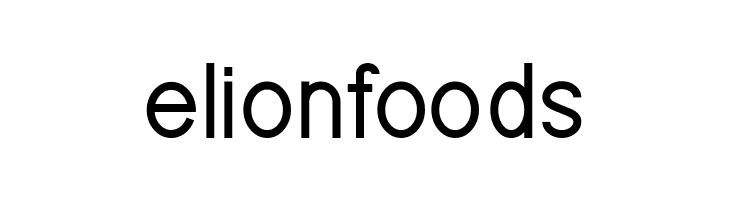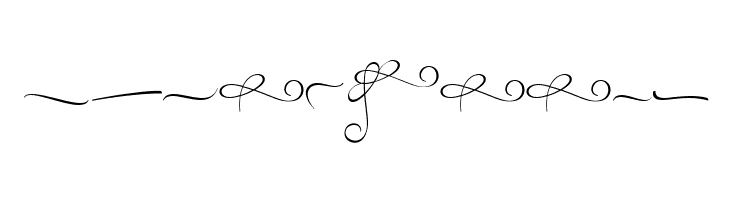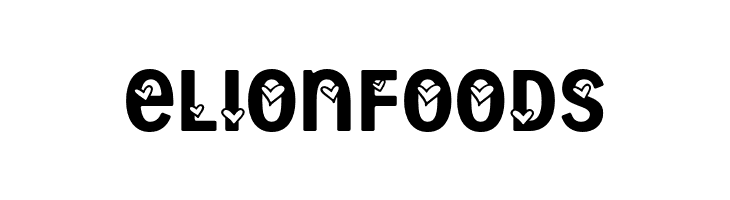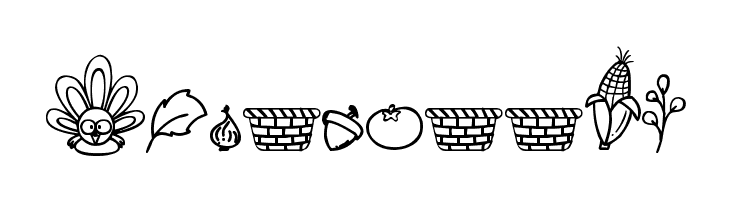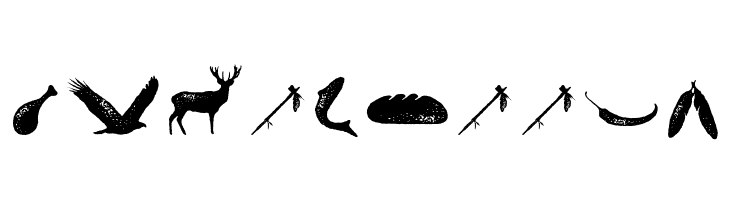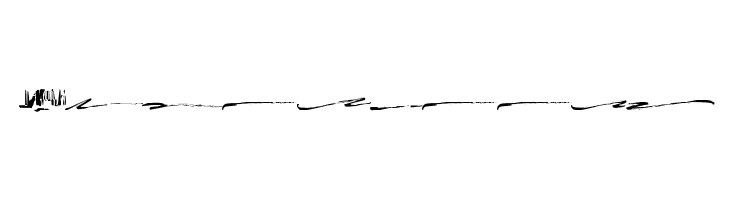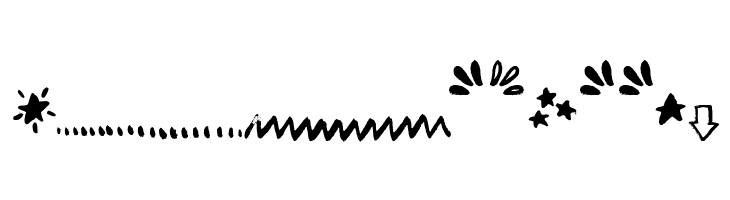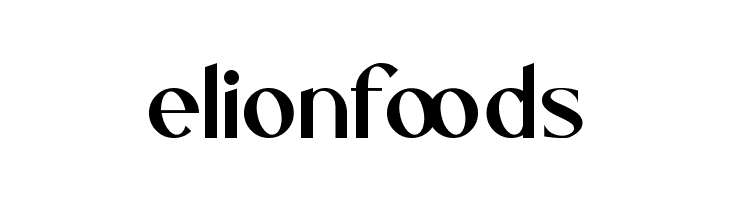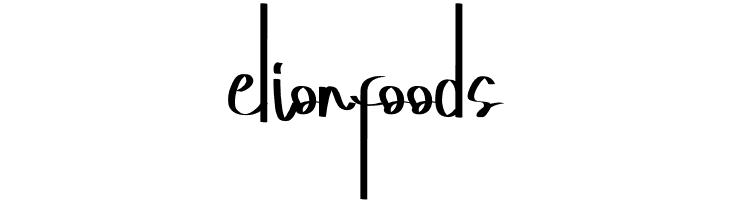
A playful and decorative font with circular embellishments on uppercase letters.
Elegant and swirling ornaments for sophisticated decoration.
A bold, decorative font with heart motifs for a playful, romantic style.
A whimsical collection of autumn-themed dingbats featuring turkeys, pumpkins, and other harvest symbols.
A vintage collection of rustic, handcrafted icons and symbols.
Elegant, flowing swashes with a calligraphic style.
A playful set of hand-drawn decorative elements with a whimsical, brush-like texture.
A modern, high-contrast font with elegant, geometric lines.
A festive font with Christmas-themed decorations on bold, rounded letters.
A modern, expressive font with tall uppercase and bold lowercase letters.